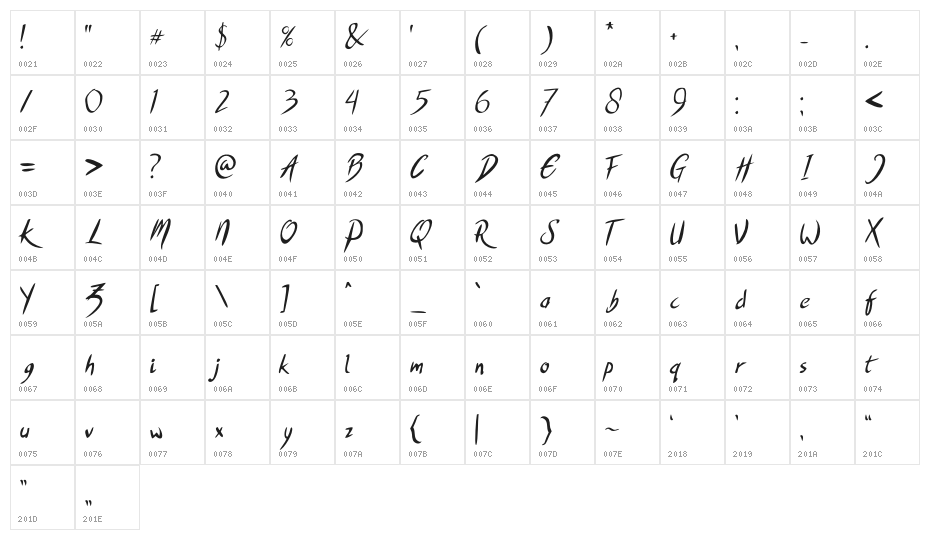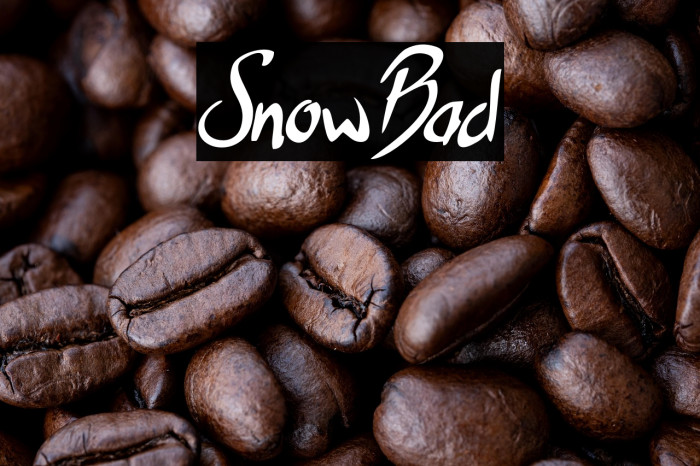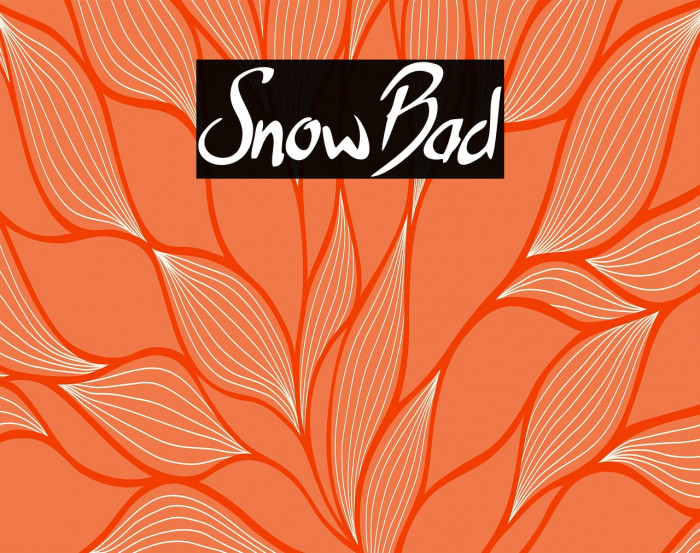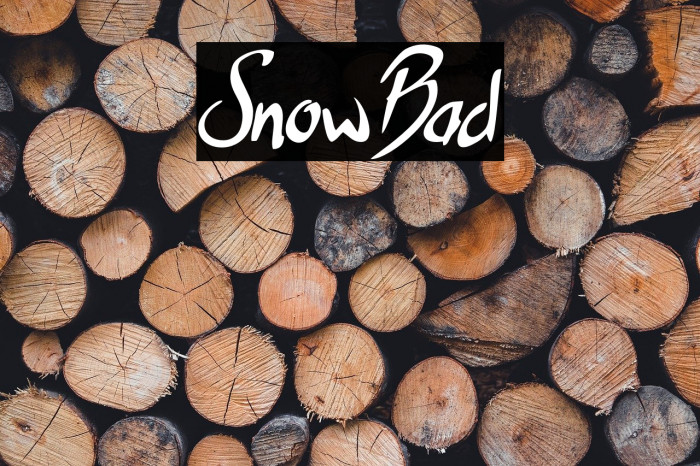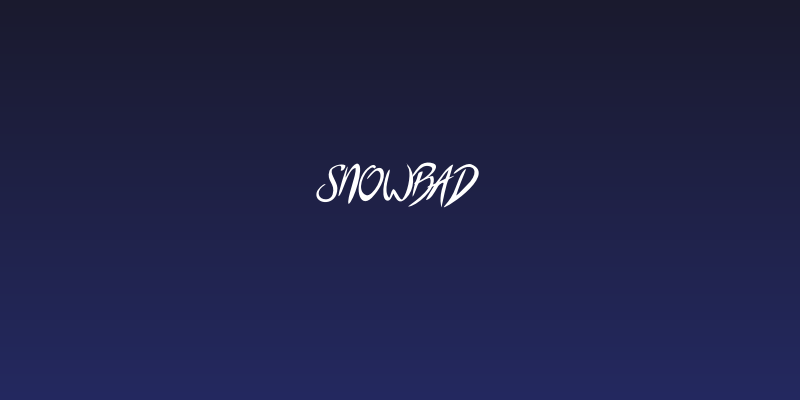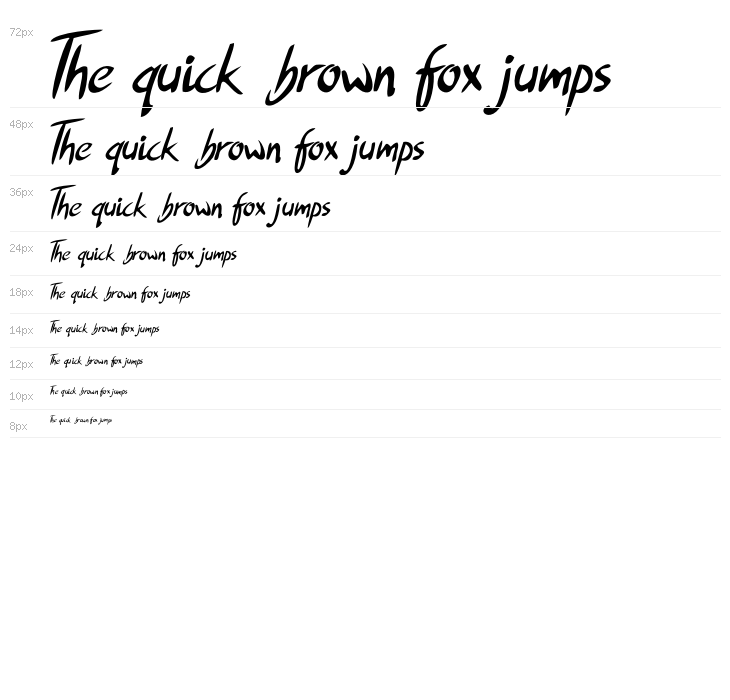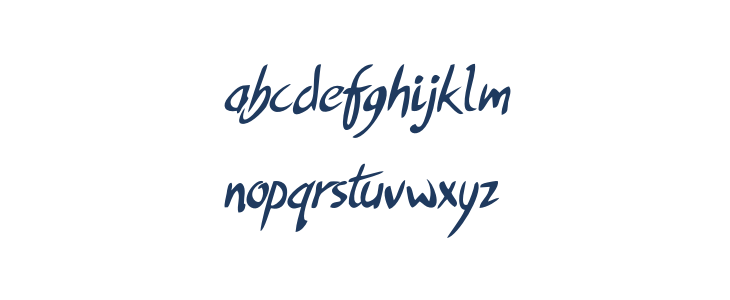
SnowBad Font
SnowBad Description
This font features a dynamic and energetic script style with a hand-drawn appearance. The uppercase letters are bold and sweeping, with exaggerated curves and sharp angles that give a sense of movement and flair. The lowercase letters maintain a consistent flow, complementing the uppercase with a slightly more restrained yet still lively design. Numbers are crafted with a similar aesthetic, ensuring uniformity across all characters. Special characters are integrated seamlessly, maintaining the font's overall expressive and artistic feel. This font is ideal for projects that require a touch of creativity and personality.
| Use Case | Logos, Headlines, Posters |
| Proposed Projects | Ideal for branding, logos, posters, and creative projects that require a bold, artistic touch. |